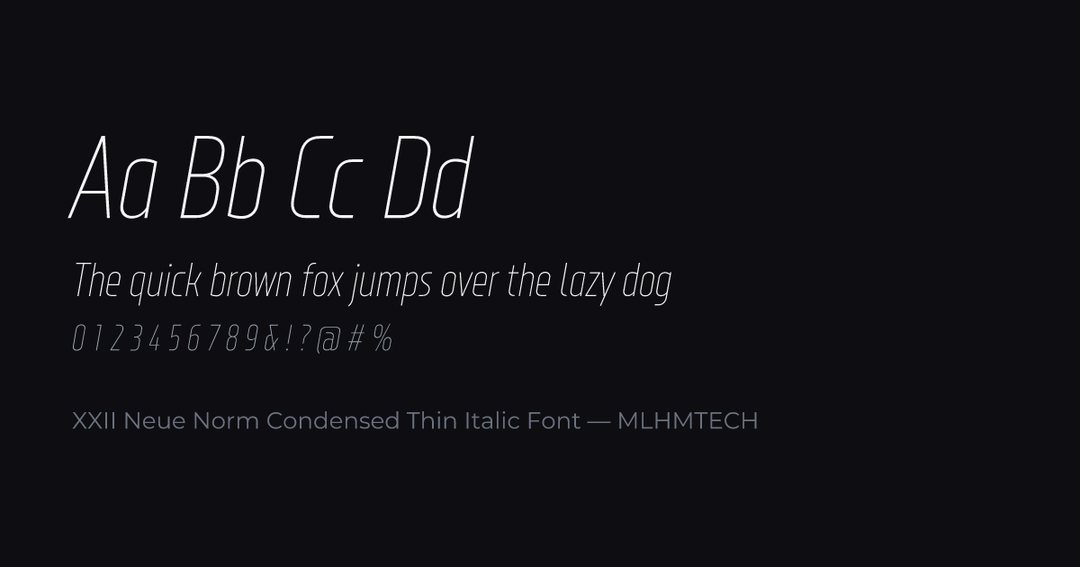
XXII Neue Norm Condensed Thin Italic Font
A refined condensed sans-serif font with a thin italic style, ideal for modern, elegant designs.
XXII Neue Norm Condensed Thin Italic is a sophisticated typeface that combines a condensed structure with a delicate thin weight and an italic slant. Its clean lines and contemporary feel make it perfect for fashion editorials, luxury branding, and minimalist web design.
This font adds a touch of refinement to any project, whether used for headlines, logos, or display text. The condensed nature allows for impactful typography in tight spaces, while the thin strokes convey elegance and precision.